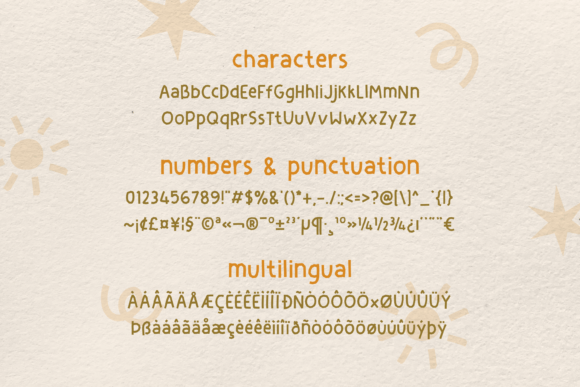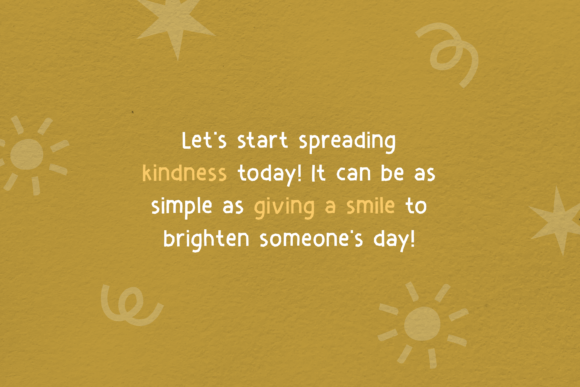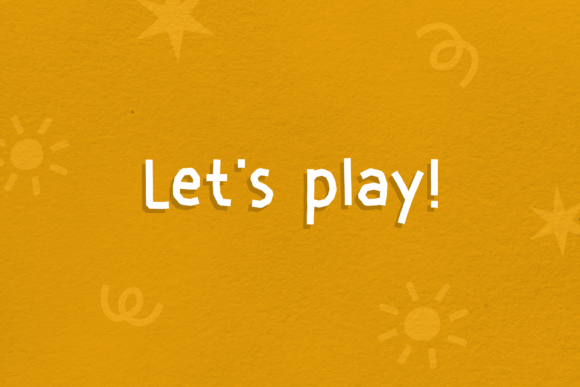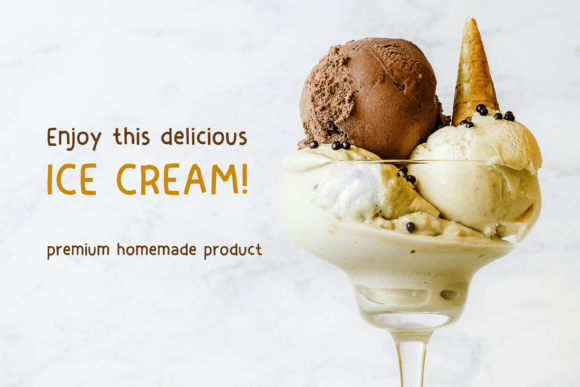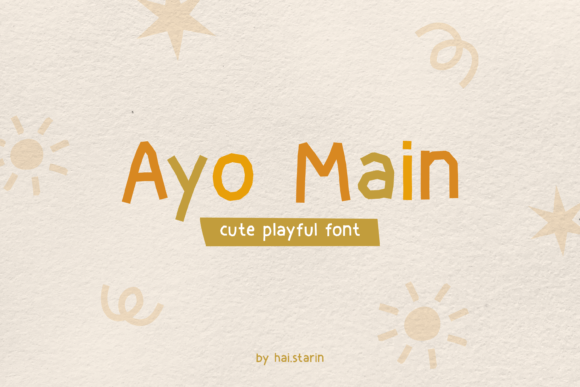
Ayo Main Font: Add a Playful Touch to Your Designs
Are you looking for a font that can add a fun and playful touch to your designs? Look no further than Ayo Main Font! This cute font is perfect for a wide range of projects, from posters and printed quotes to digital designs, product packagings, and more. In this article, we’ll take a closer look at Ayo Main Font and explore its features, benefits, and uses.
What is Ayo Main Font?
Ayo Main Font is a unique and creative font that is designed to bring a playful and fun vibe to your designs. Its cute and charming appearance makes it perfect for projects that require a lighthearted and youthful feel. Whether you’re a designer, crafters, or DIY enthusiast, Ayo Main Font is a great addition to your font collection.
Features of Ayo Main Font
Ayo Main Font comes with a range of features that make it versatile and easy to use. Some of its key features include:
• Cute and playful design: Ayo Main Font has a unique and adorable design that is sure to capture the attention of your audience.
• High-quality letters: The font features high-quality letters that are clear and easy to read, making it perfect for use in a variety of projects.
• Multilingual support: Ayo Main Font supports multiple languages, making it a great choice for designers and crafters who work with international clients.
• Easily customizable: The font is easily customizable, allowing you to adjust the size, color, and style to suit your design needs.
Benefits of Using Ayo Main Font
There are many benefits to using Ayo Main Font in your designs. Some of the most significant advantages include:
• Adds a playful touch: Ayo Main Font adds a fun and playful touch to your designs, making them more engaging and attention-grabbing.
• Perfect for creative projects: The font is perfect for creative projects, such as posters, flyers, and digital designs, where a playful and youthful feel is desired.
• Easy to read: Ayo Main Font is easy to read, making it perfect for use in projects where text needs to be clear and legible.
• Versatile: The font is versatile and can be used in a wide range of projects, from print to digital designs.
Uses of Ayo Main Font
Ayo Main Font is perfect for a wide range of projects, including:
• Posters and flyers: The font is perfect for creating eye-catching posters and flyers that require a playful and fun design.
• Printed quotes: Ayo Main Font is great for creating printed quotes that require a cute and charming appearance.
• Digital designs: The font is perfect for use in digital designs, such as social media graphics, blog posts, and website headers.
• Product packagings: Ayo Main Font can be used in product packagings, such as labels, tags, and packaging materials.
• Crafting projects: The font is perfect for use in crafting projects, such as handmade cards, scrapbooking, and DIY projects.
Tips for Using Ayo Main Font
Here are some tips for using Ayo Main Font in your designs:
• Pair with other fonts: Ayo Main Font can be paired with other fonts to create a unique and creative design.
• Experiment with colors: The font looks great in a range of colors, so experiment with different colors to find the one that works best for your design.
• Use in combination with images: Ayo Main Font can be used in combination with images to create a visually appealing design.
Ayo Main Font is a cute and playful font that is perfect for designers, crafters, and DIY enthusiasts who want to add a fun and youthful touch to their designs. With its high-quality letters, multilingual support, and easily customizable features, Ayo Main Font is a great addition to any font collection. Whether you’re creating posters, printed quotes, digital designs, product packagings, or crafting projects, Ayo Main Font is sure to bring a playful and creative vibe to your designs.